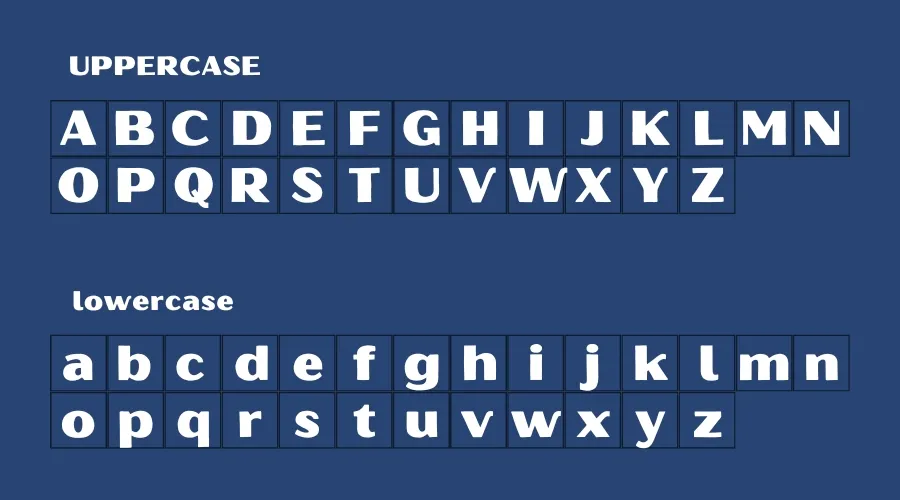
About LHF Chucky Block Beta Font
Any kind of project looks beautiful while using this typeface. The letters are presented in a sleek, strong design it includes alphabets, digits, and some unusual letters. LHF Chucky Block Beta Font is designed by Fontke.
This typeface includes amazing options for the design and feel. It has well-known characteristics that make it particularly useful for a variety of uses including the TTF file format. This font's glyphs have a frequency of 1024 pixels per unit.